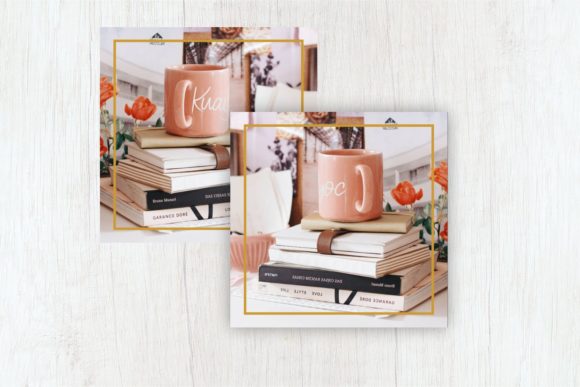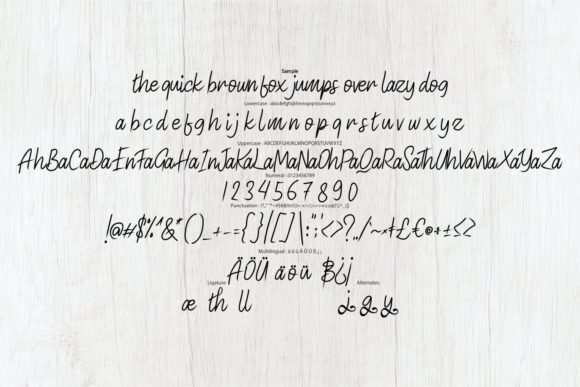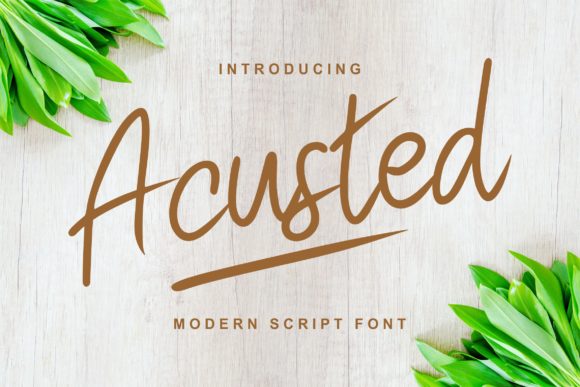
The Acusted Font: A Timeless Addition to Your Design Arsenal
Have you ever been in the middle of a design project, and suddenly, you’re stuck on finding the perfect font? I recall a particularly frustrating experience while working on a client’s wedding invitation design. The project required a unique, handwritten font that would evoke a sense of nostalgia and romance. After scouring the internet for hours, I stumbled upon the Acusted font. It was love at first sight! ✨
In this article, we’ll dive into the world of Acusted, exploring its features, how to use it on various platforms, and some similar fonts you might enjoy.
An Honest Review of Acusted Font
What I Love About Acusted Font
- ✨ Unique and elegant handwritten style
- ✅ Highly versatile for various design projects
- 💫 Supports OpenType features and glyphs
- 👍 Easy to read and works well in large and small sizes
While Acusted is an amazing font, there are a few things to keep in mind:
- ⚠️ Limited availability of stylistic alternates
- 🤔 May not be the best fit for very formal or corporate designs
If you love Acusted, you might also enjoy these similar fonts:
- Lobster: A elegant, script font with a similar feel to Acusted. Use it for formal events or luxury branding.
- Pacifico: A beautiful, handwritten font with a relaxed, beachy vibe. Perfect for casual designs or summer-themed projects.
- Great Vibes: A modern, script font with a fun and energetic personality. Use it for creative projects or social media graphics.
- Carolyna Pro: A elegant, handwritten font with a sophisticated feel. Ideal for formal events, wedding designs, or high-end branding.
The Story Behind Acusted Font
Acusted was inspired by classic typography and the art of handwriting. Its creator aimed to craft a font that would bring a touch of elegance and sophistication to any design project. With its unique blend of traditional and modern elements, Acusted has become a popular choice among designers and crafters.
Q: What type of projects is Acusted suitable for?
A: Acusted is a versatile font that can be used for various design projects, including wedding invitations, DIY crafts, social media graphics, and more.
Q: Is Acusted a difficult font to read?
A: No, Acusted is designed to be easy to read, even in small sizes.